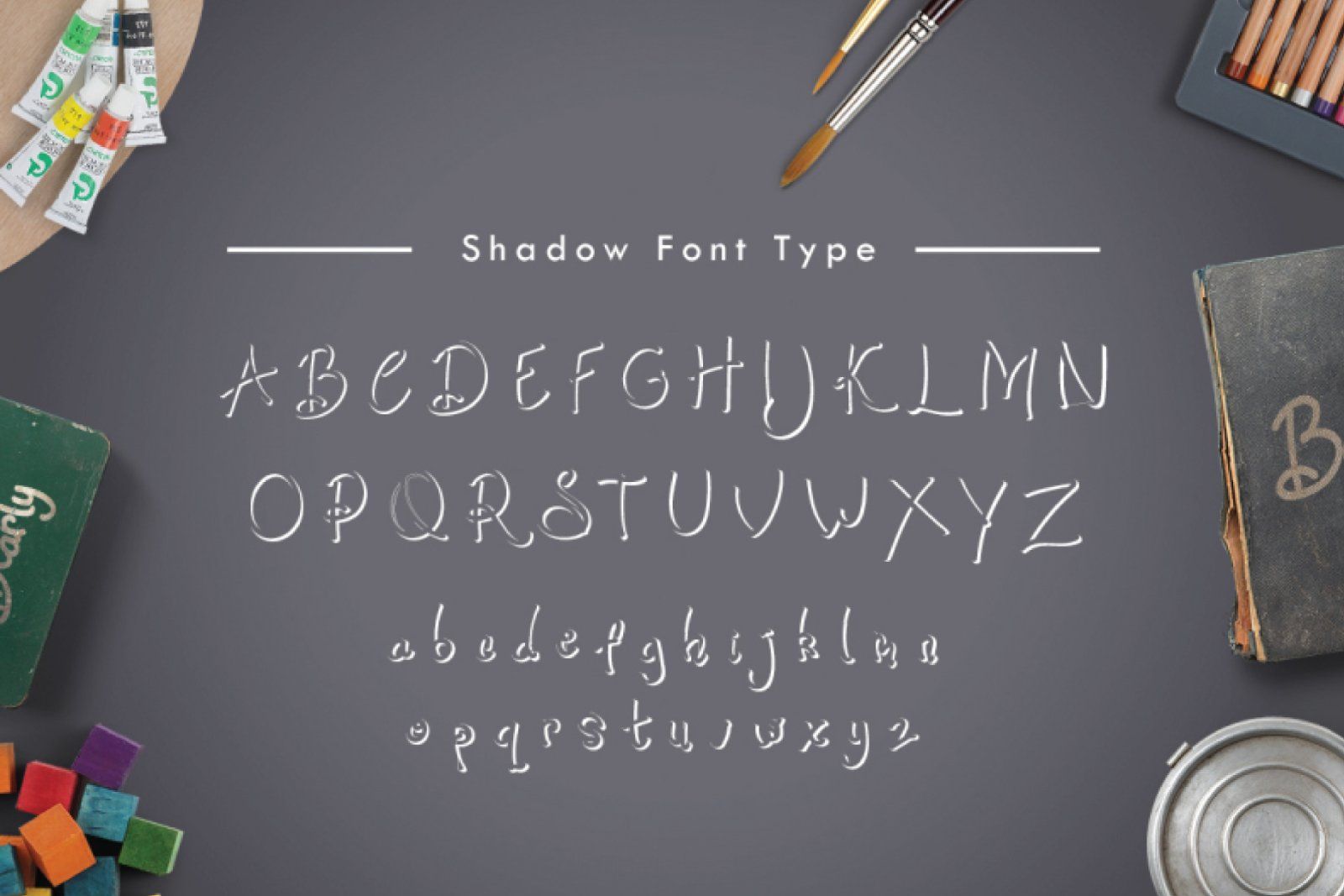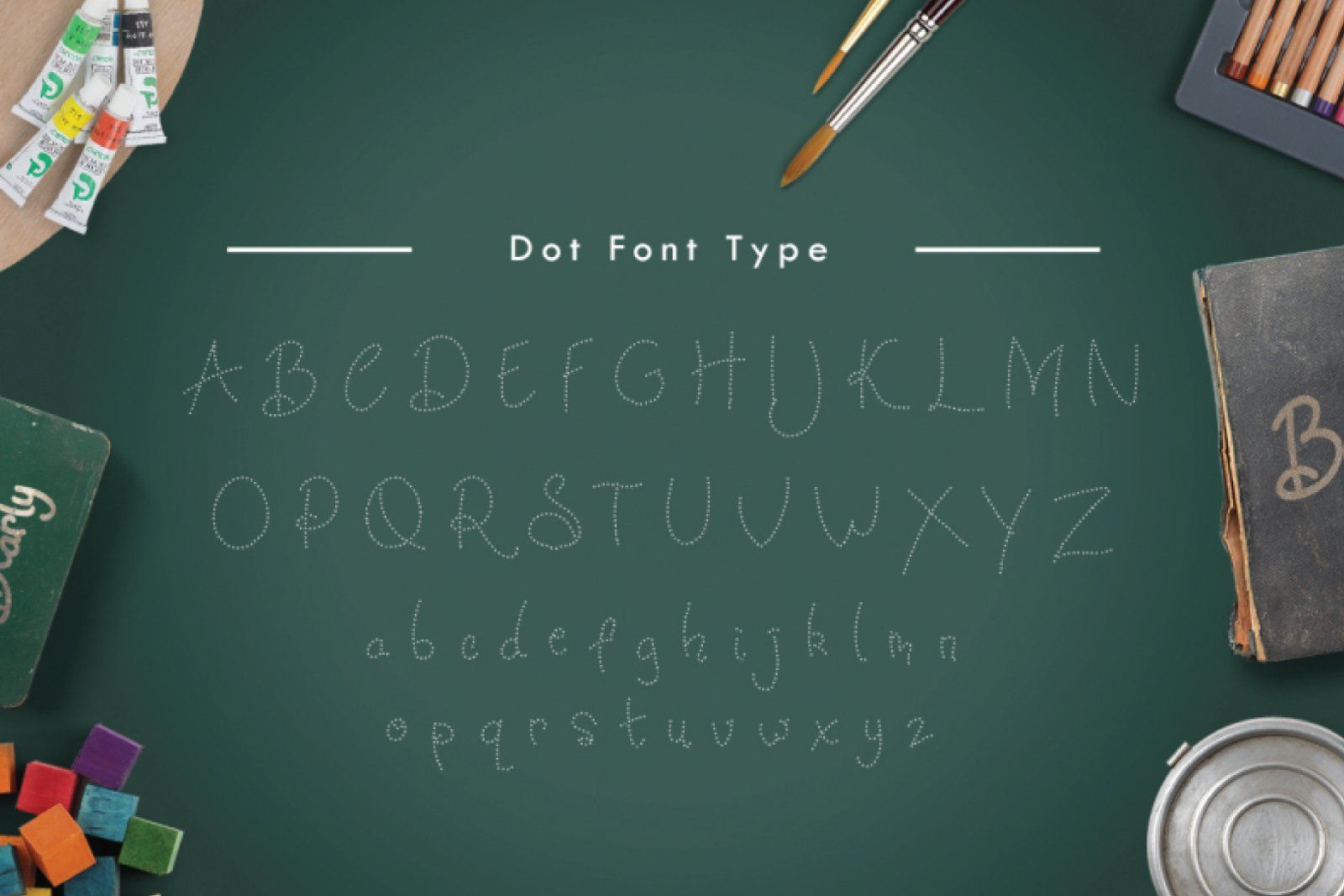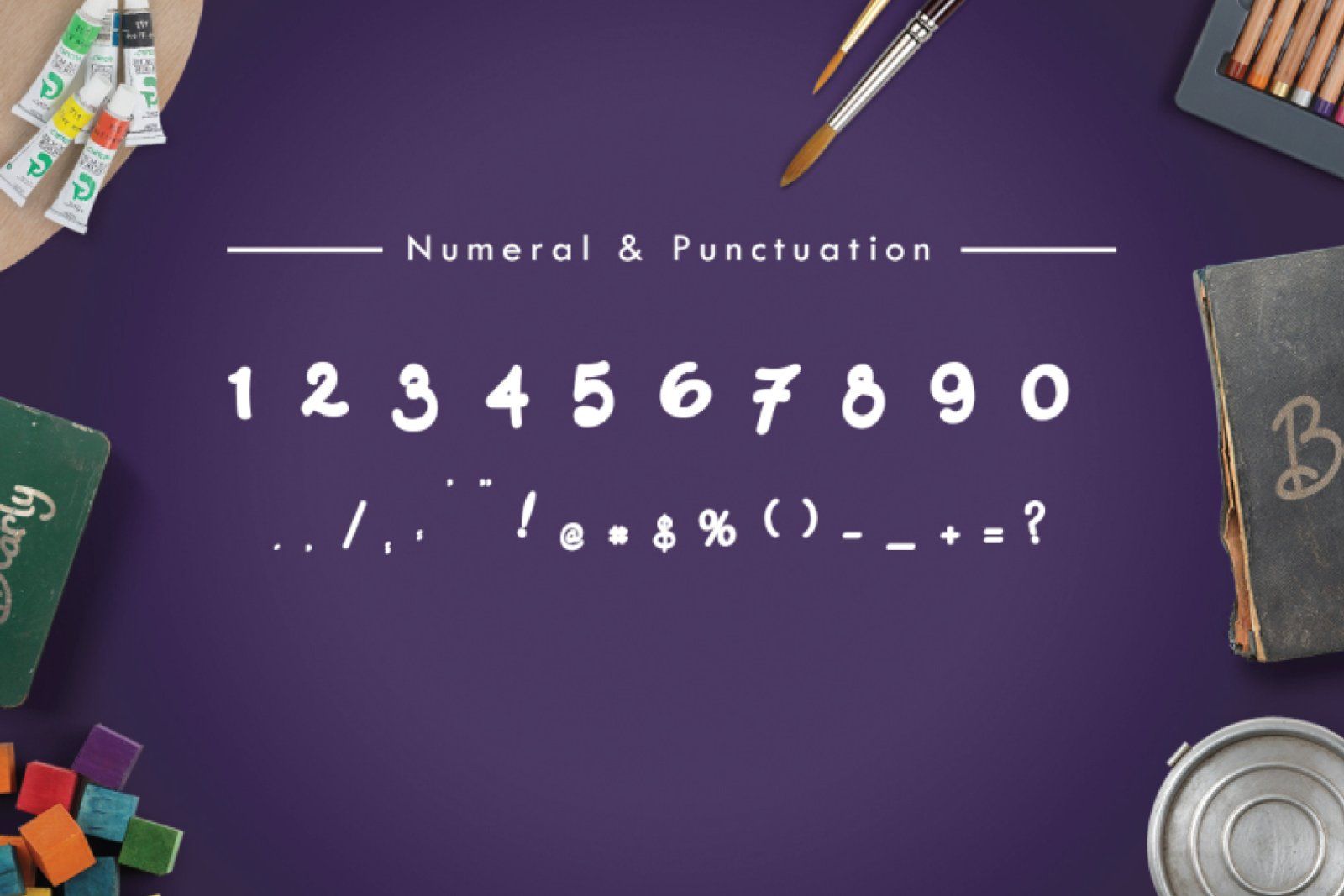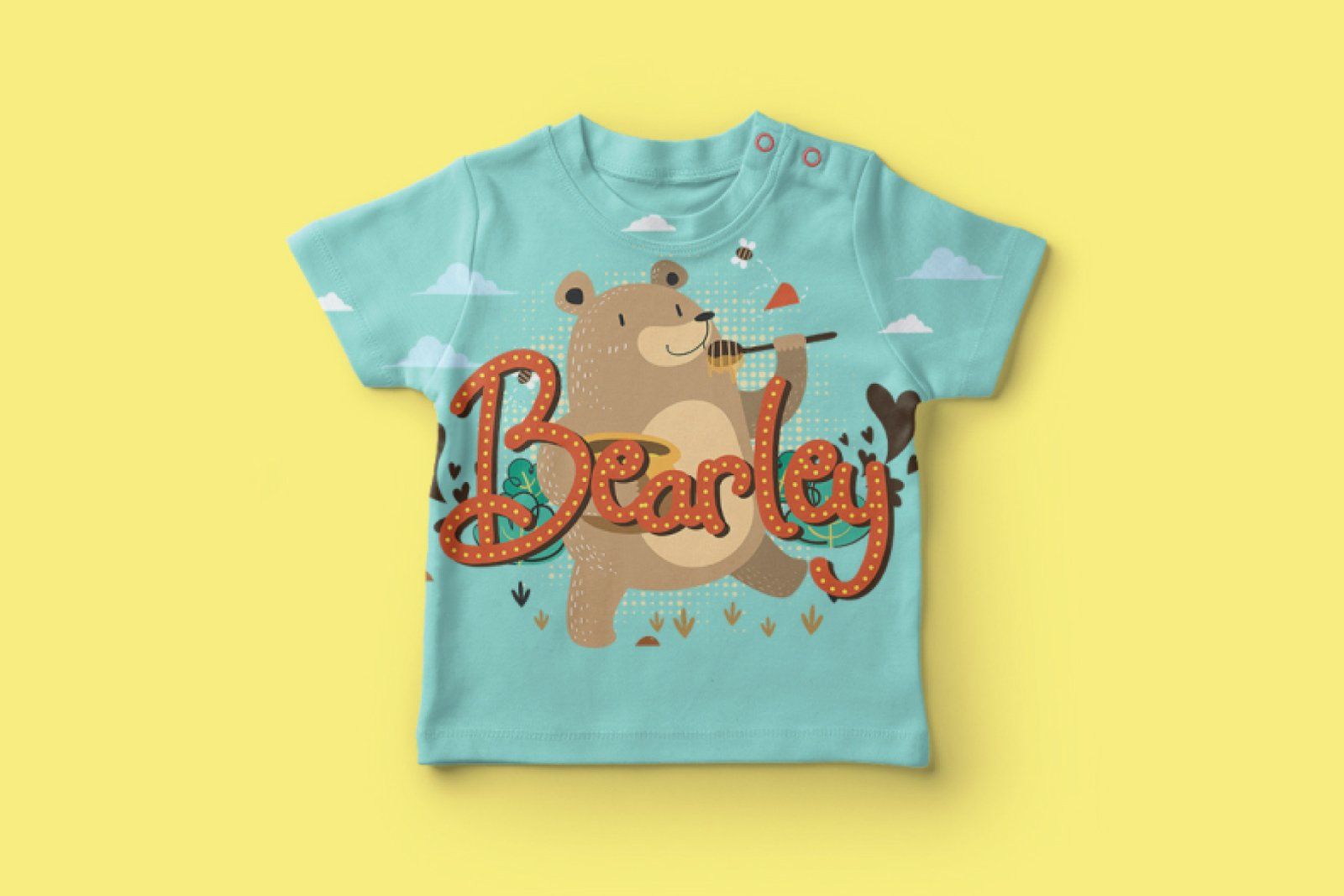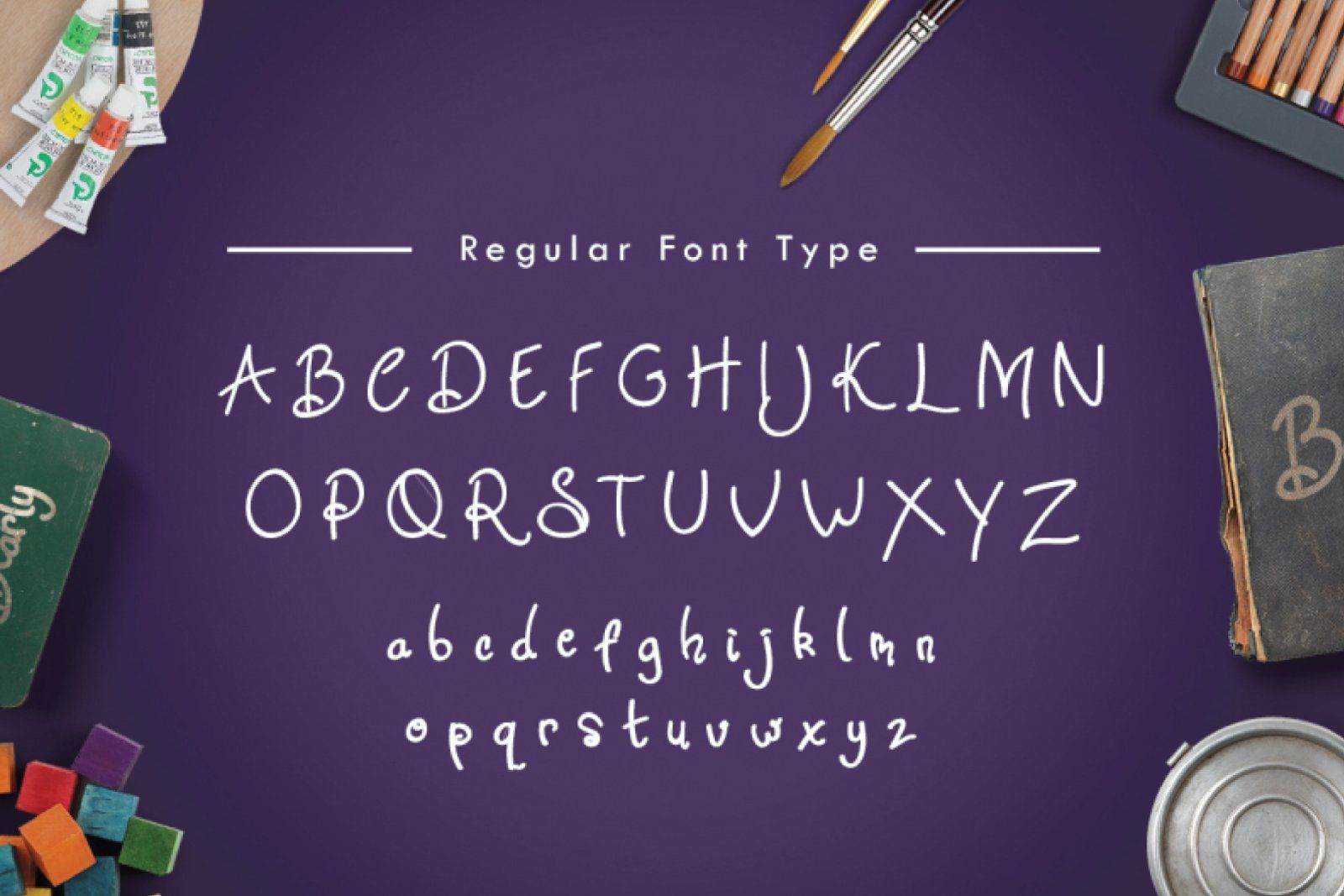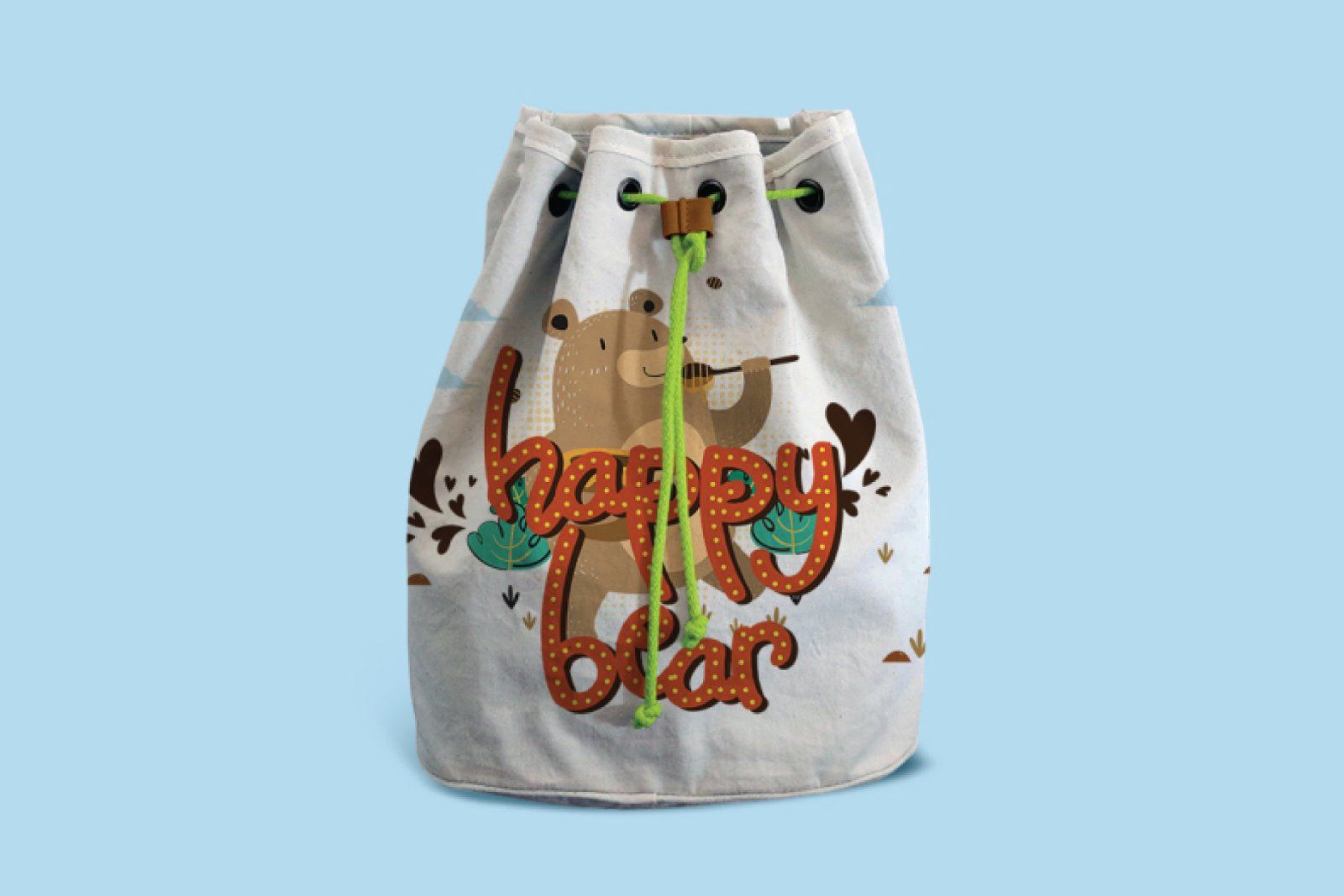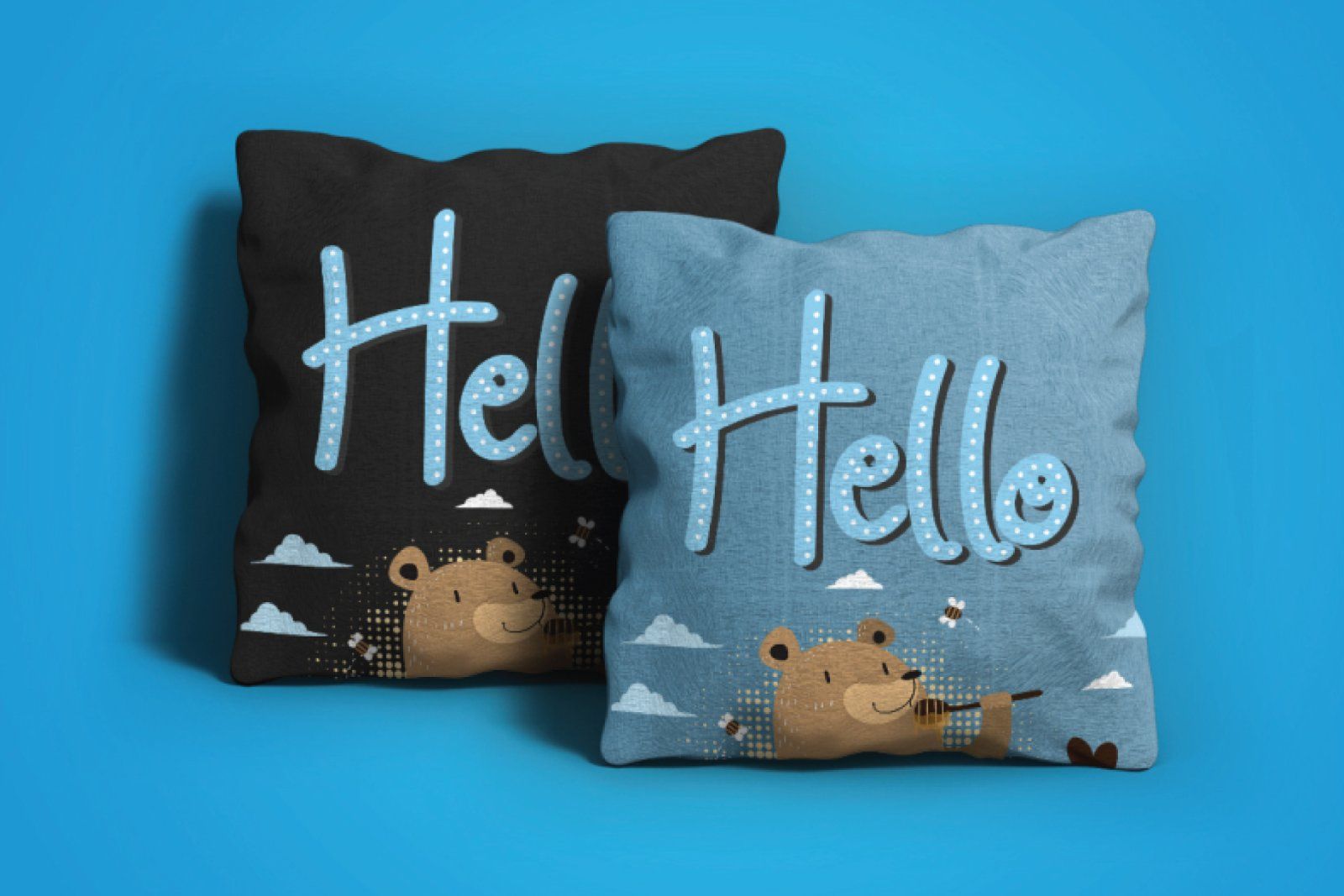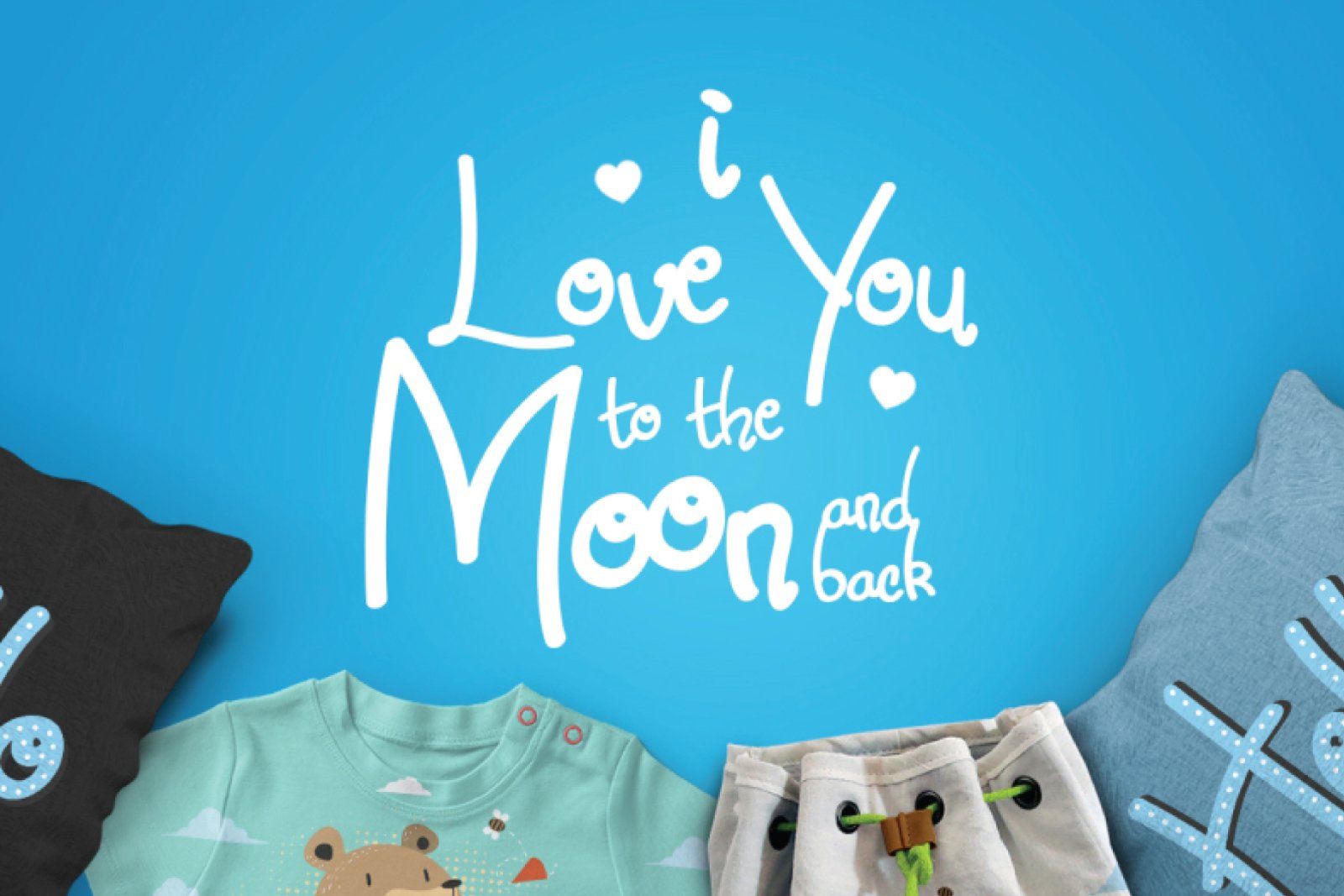
Bearley is inspired from various doodle and handwritting fonts. This layered font with special ligature is ideal for your graphic design works: Such as your title works, quotes, etc. Enjoy and have fun with Bearley on your design!
• Bearley (UPPERCASE, LowerCase, Numeric, Punctuation, Ligature characters)
• Bearley Bold (UPPERCASE, LowerCase, Numeric, Punctuation, Ligature characters)
• Bearley Shadow (UPPERCASE, LowerCase, Numeric, Punctuation, Ligature characters)
• Bearley Dot (UPPERCASE, LowerCase, Numeric, Punctuation, Ligature characters)